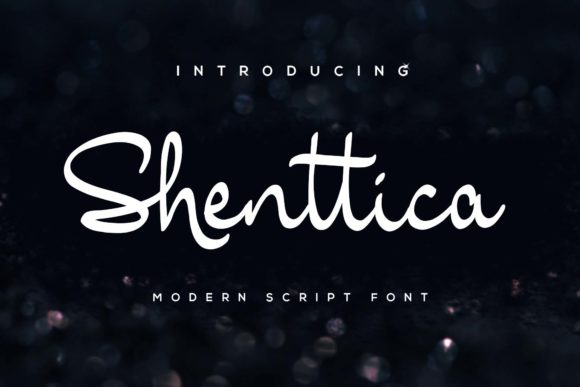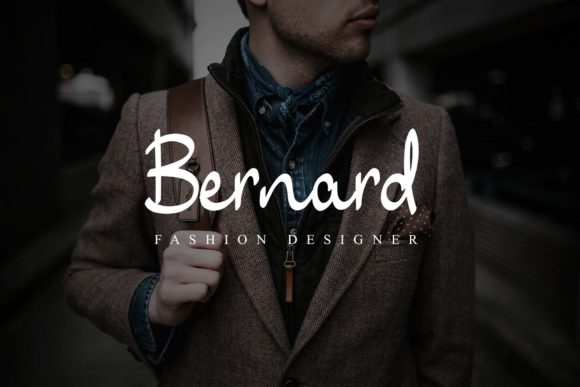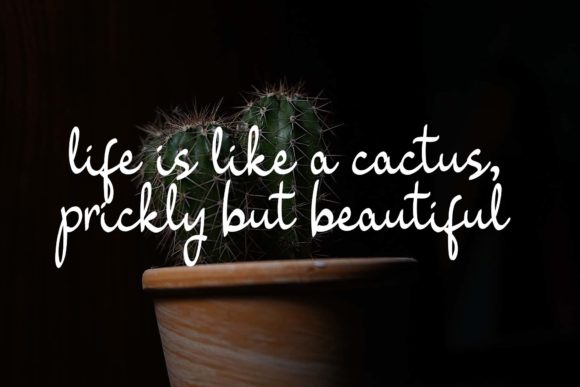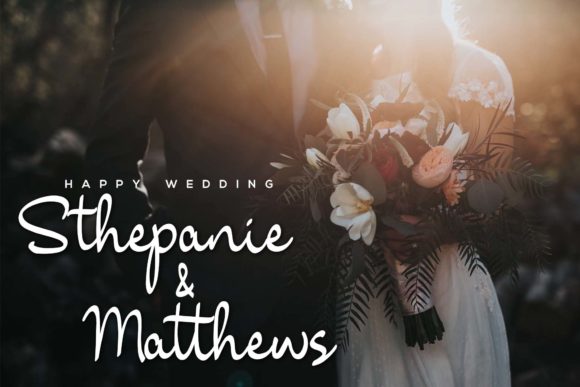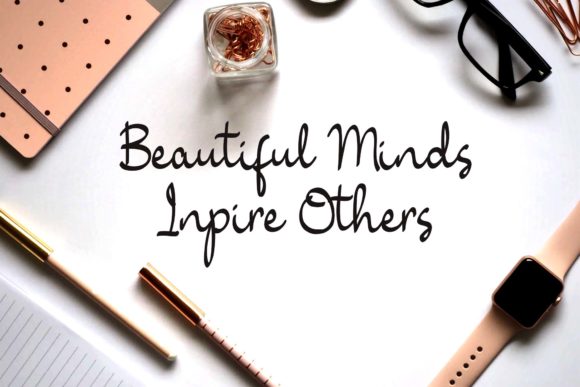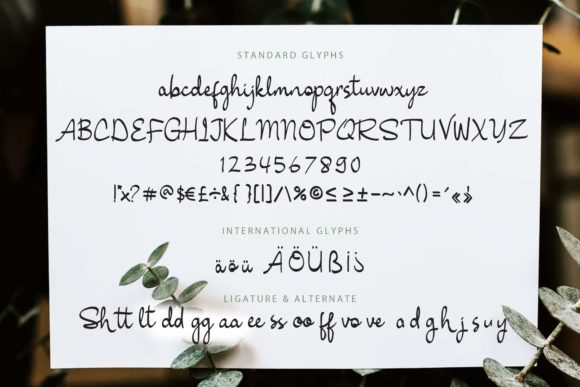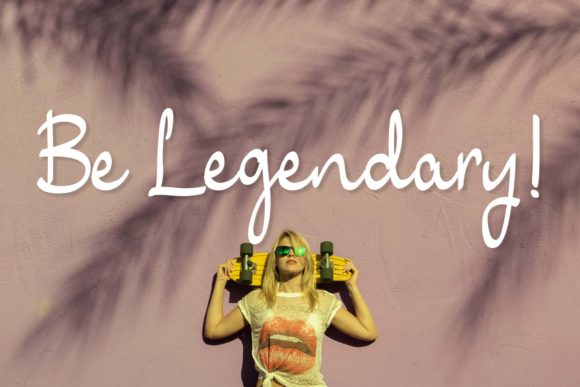
HomeScript FontsShenttica Font Script Fonts Shenttica Font FacebookXPinterestWhatsApp Shenttica Font Poster 2 Shenttica Font Poster 3 Shenttica Font Poster 4 Shenttica Font Poster 5 Shenttica Font Poster 6 Shenttica Font Poster 7 About Shenttica Font Shenttica is a fun and cool handwritten font with a cool twist. Get inspired by its unique style! DOWNLOAD NOW People also explored Xmas List Font Browny Market Font Tinderbox Espledore Font Sunderland Font Siblingh Font Virtual Nigatsu Font Contra Condensed 280 0 TagsShenttica Font Previous articleRastynd FontNext articleThemysion Font LEAVE A REPLY Cancel reply Comment: Please enter your comment! Name:* Please enter your name here Email:* You have entered an incorrect email address! Please enter your email address here Website: Save my name, email, and website in this browser for the next time I comment. Personal Use Free Open Store Personal Use Free Read more about this font Squariess Personal Use Free Read more about this font Wadjet Personal Use Free Read more about this font Cloudy Night Personal Use Free Read more about this font BLOG Fonts That Capture the Spirit of New York City New York City is more than just a place—it’s an experience, a rhythm, a visual language... Where to Buy American Fonts Online in 2024 5 Fonts That Will Dominate Design Trends in 2026 Top 10 Handwritten Fonts That Elevate Your Designs